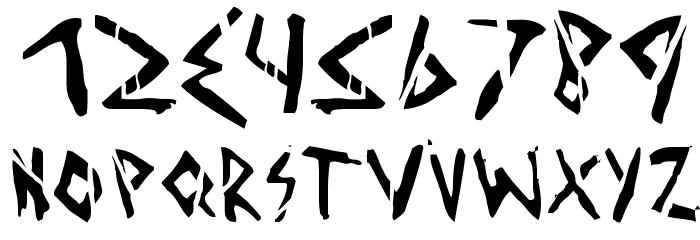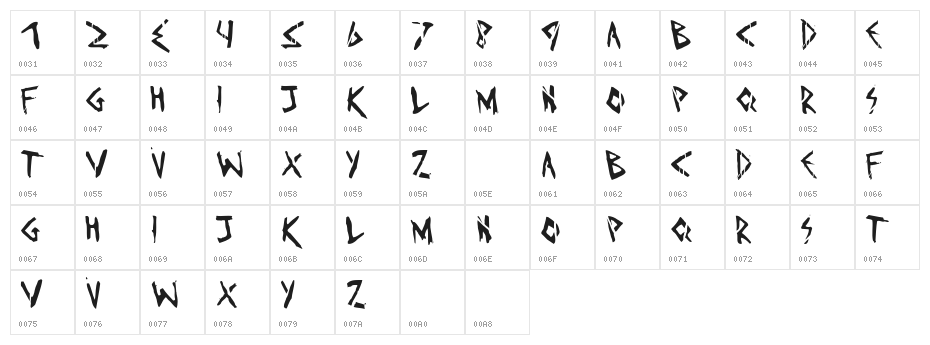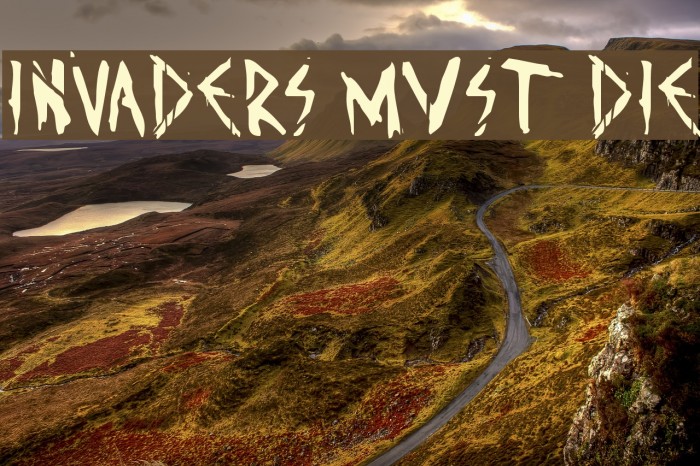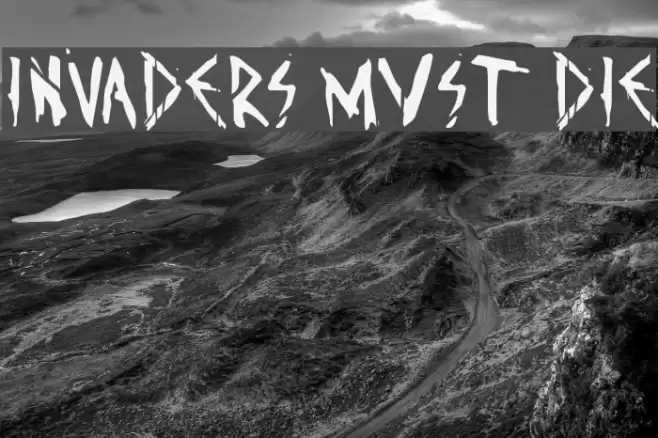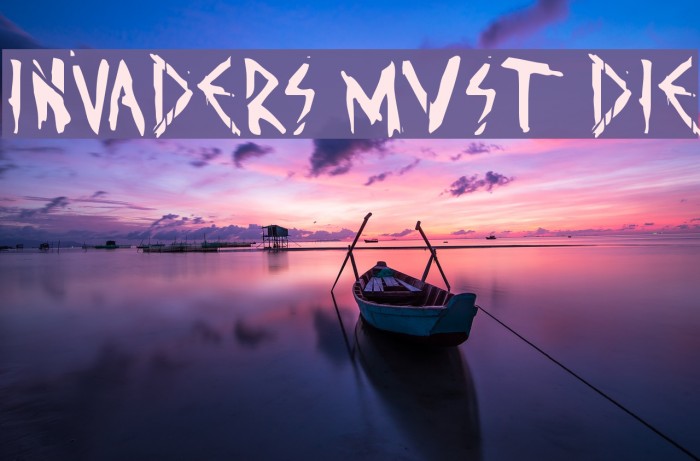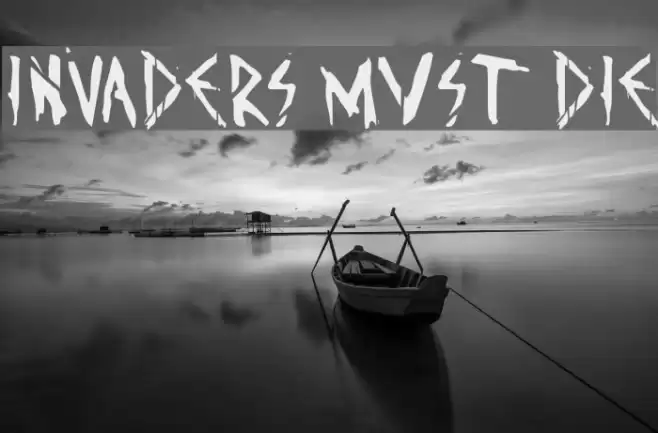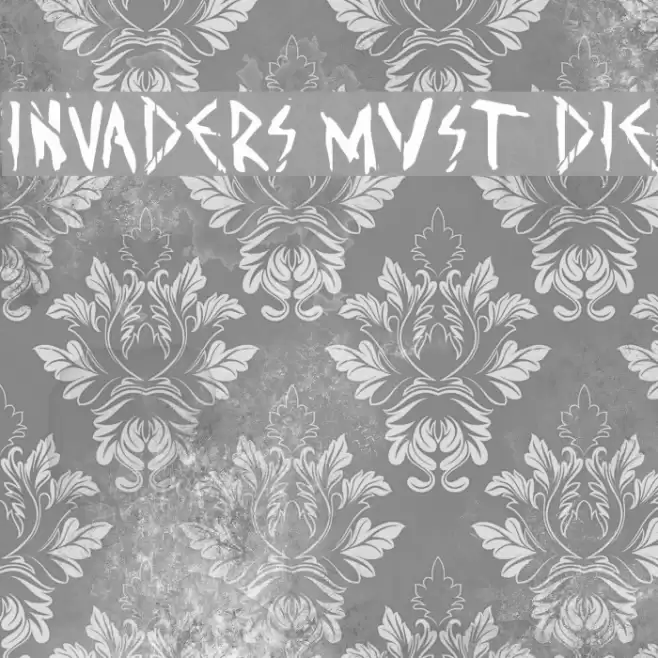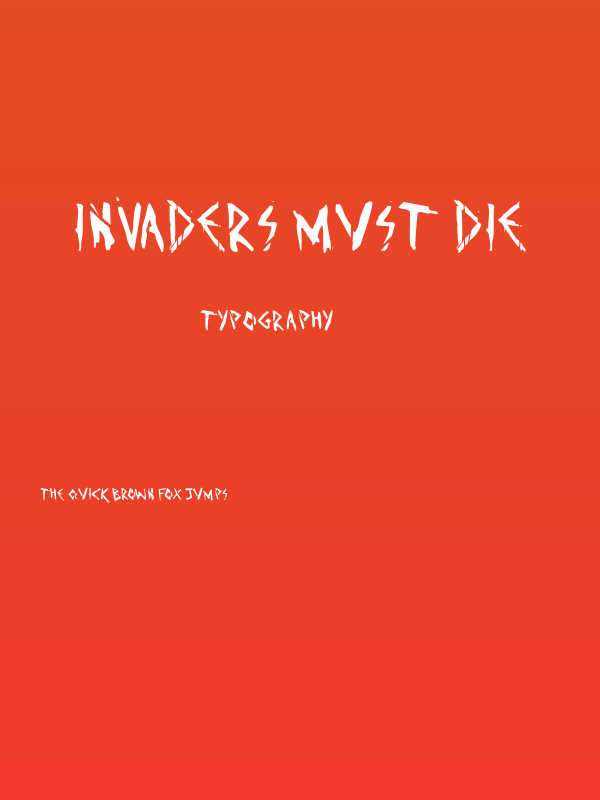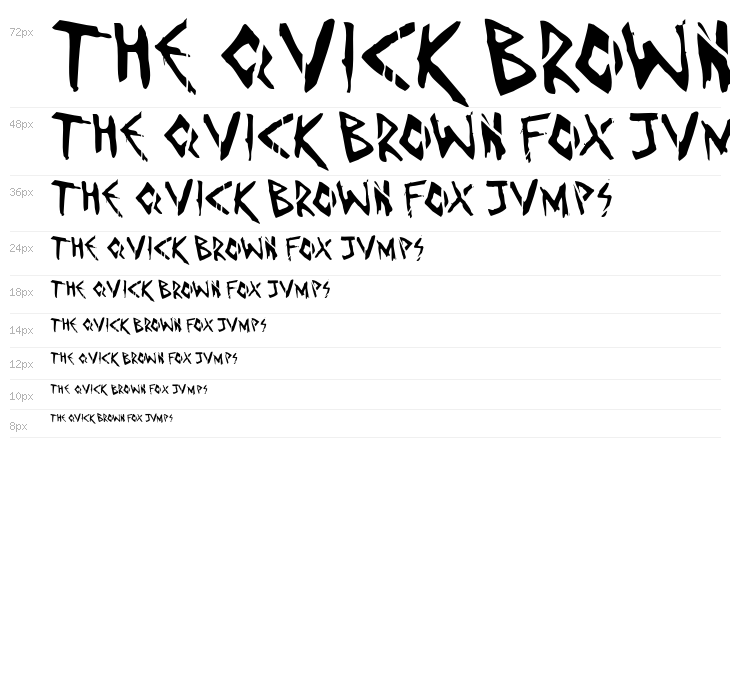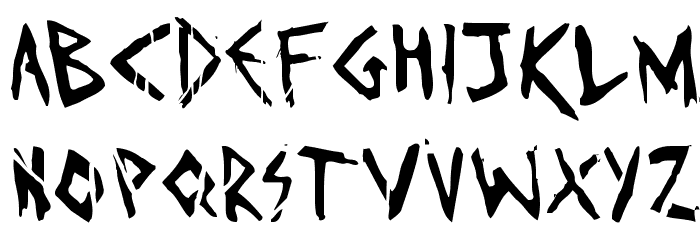
Invaders must die Font
Invaders must die Description
This font features a bold, jagged style with sharp edges and irregular shapes, reminiscent of graffiti or distressed textures. The characters are designed with a sense of movement and energy, creating a dynamic and edgy appearance. The uppercase and lowercase letters maintain a consistent theme, with angular cuts and a slightly chaotic structure. Numbers and special characters follow the same aesthetic, ensuring a cohesive look across all glyphs. This font is ideal for projects that require a rebellious or unconventional vibe, making it perfect for music posters, album covers, or urban-themed designs.
| Overall Style | Modern, Edgy |
| Proposed Projects | Ideal for music posters, album covers, urban-themed designs, and rebellious branding. |